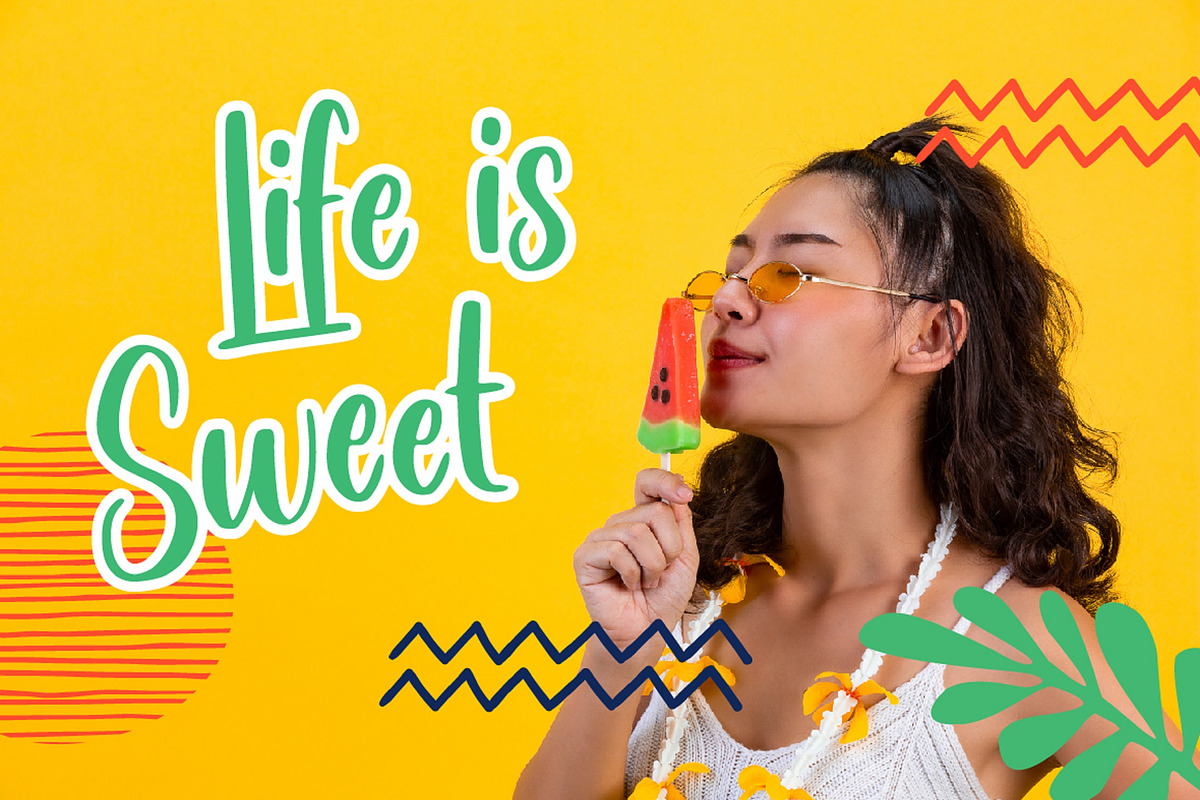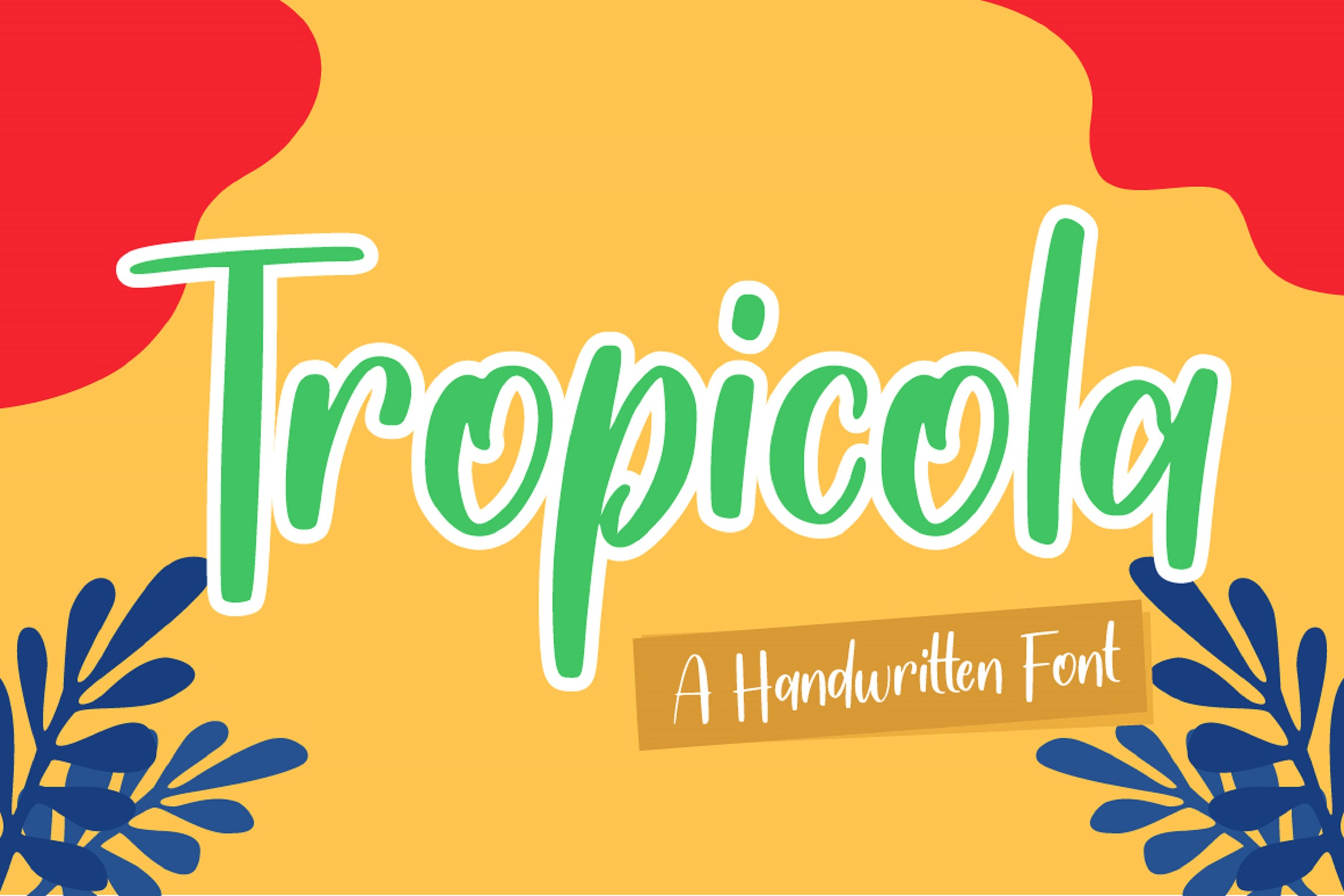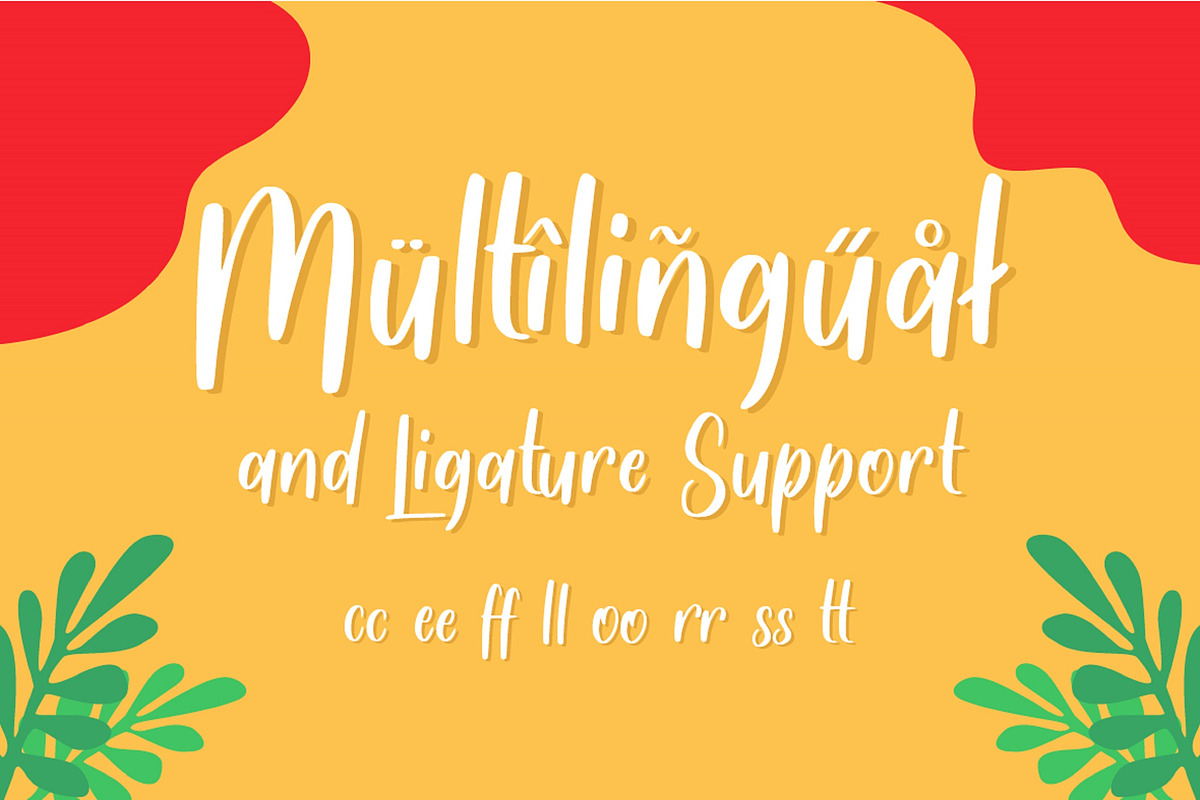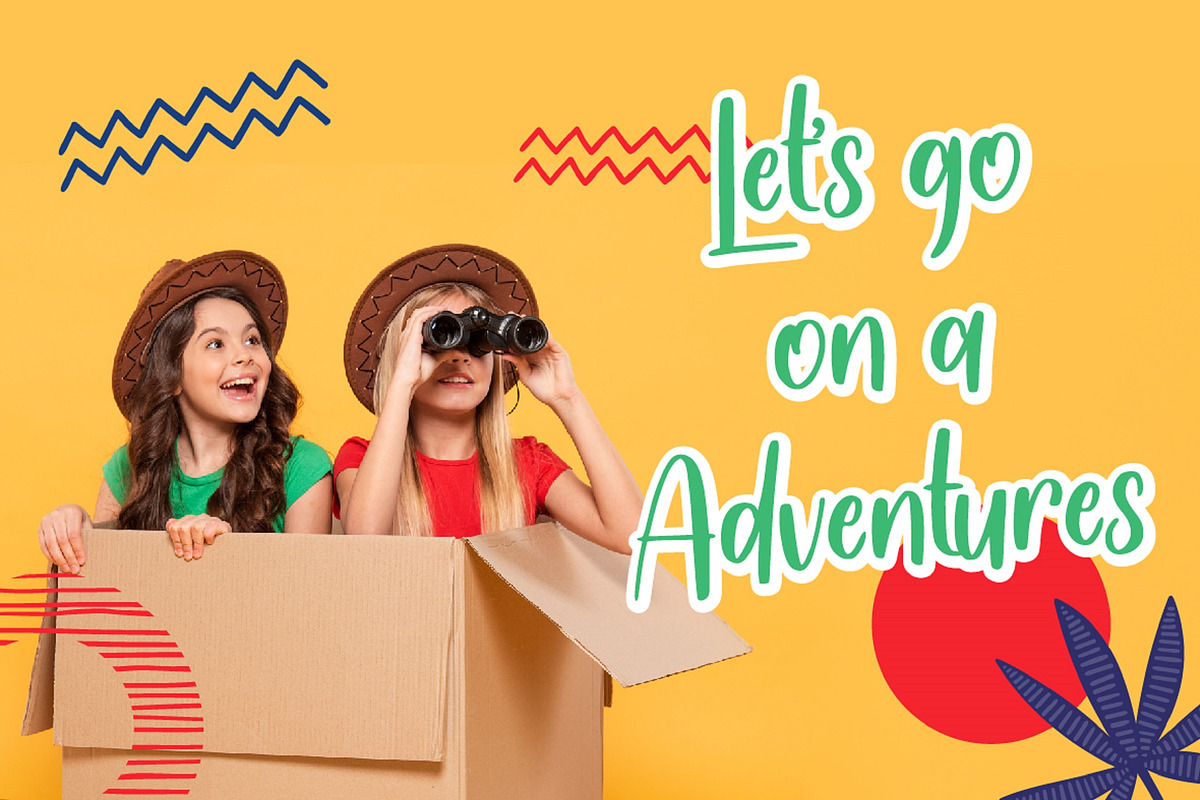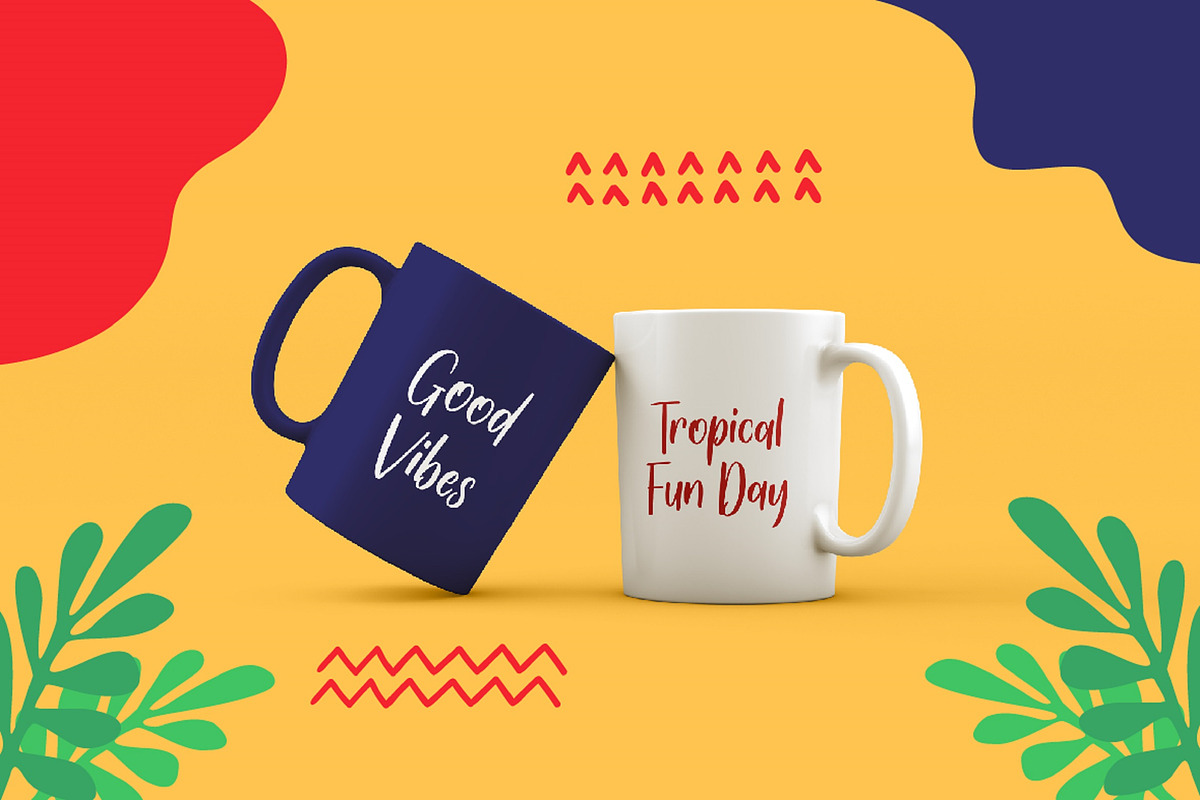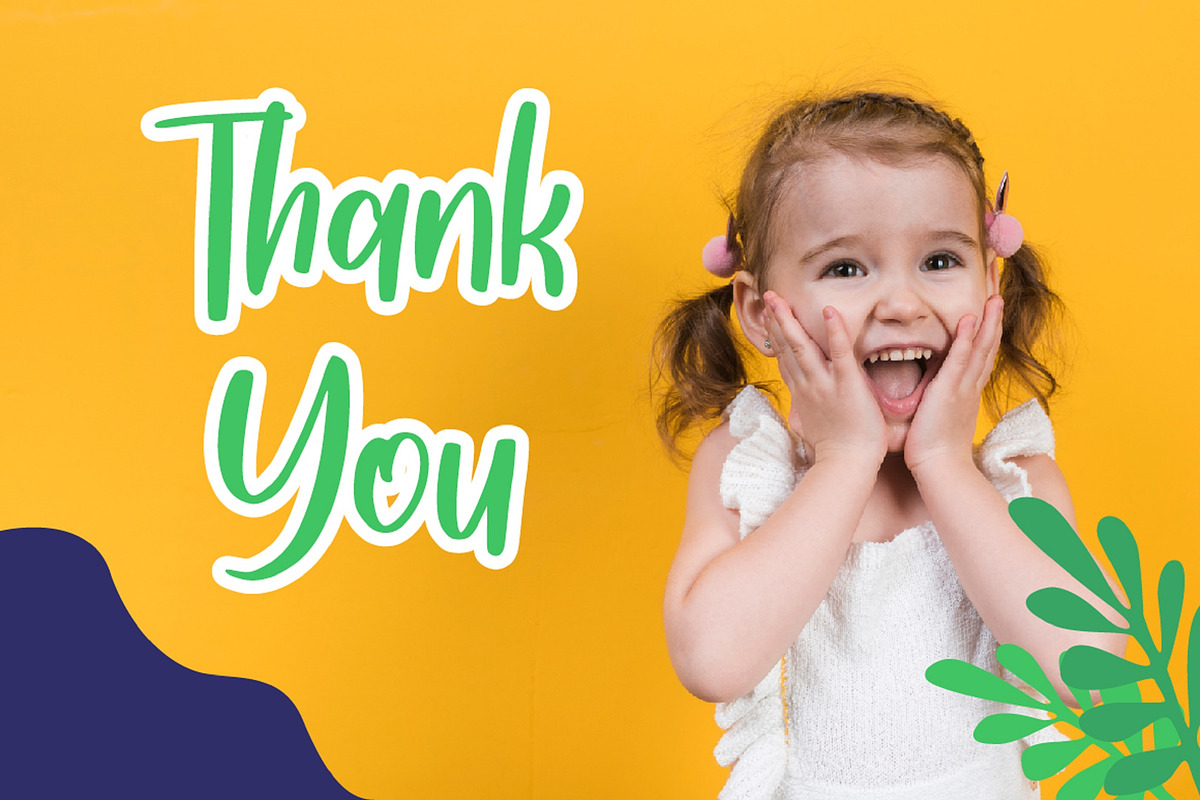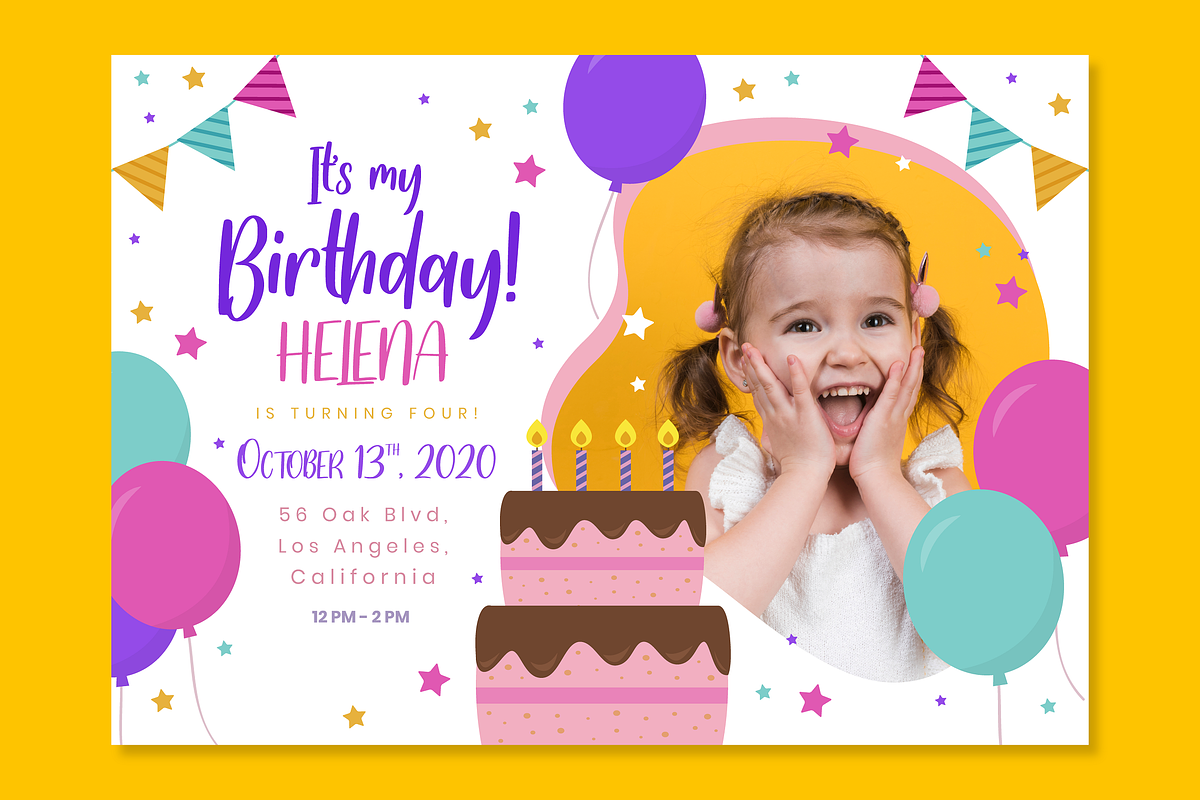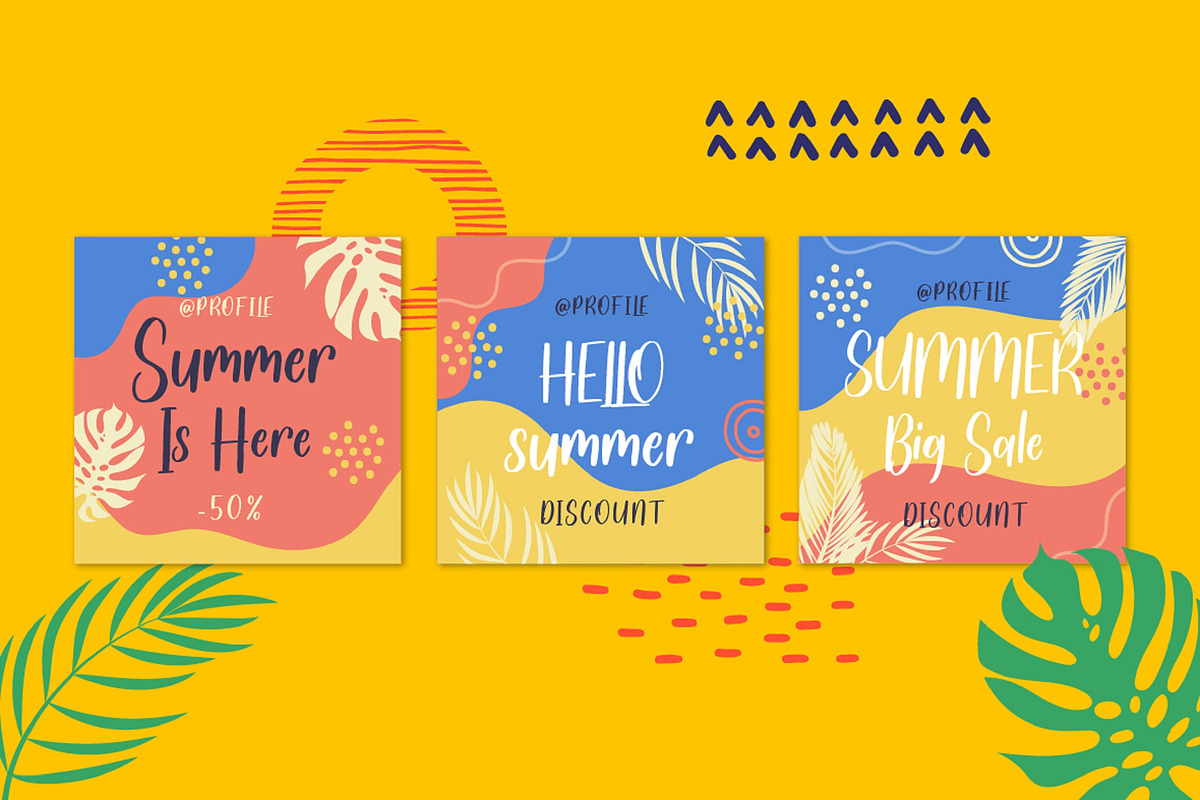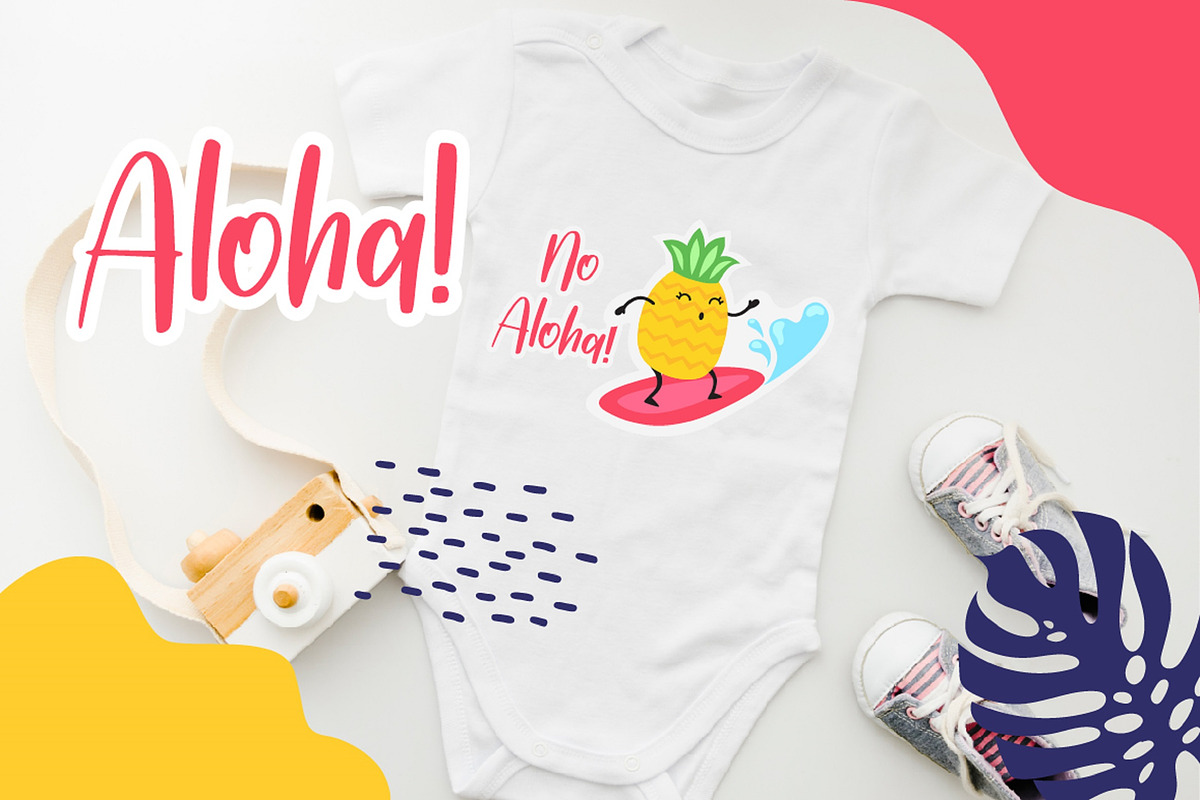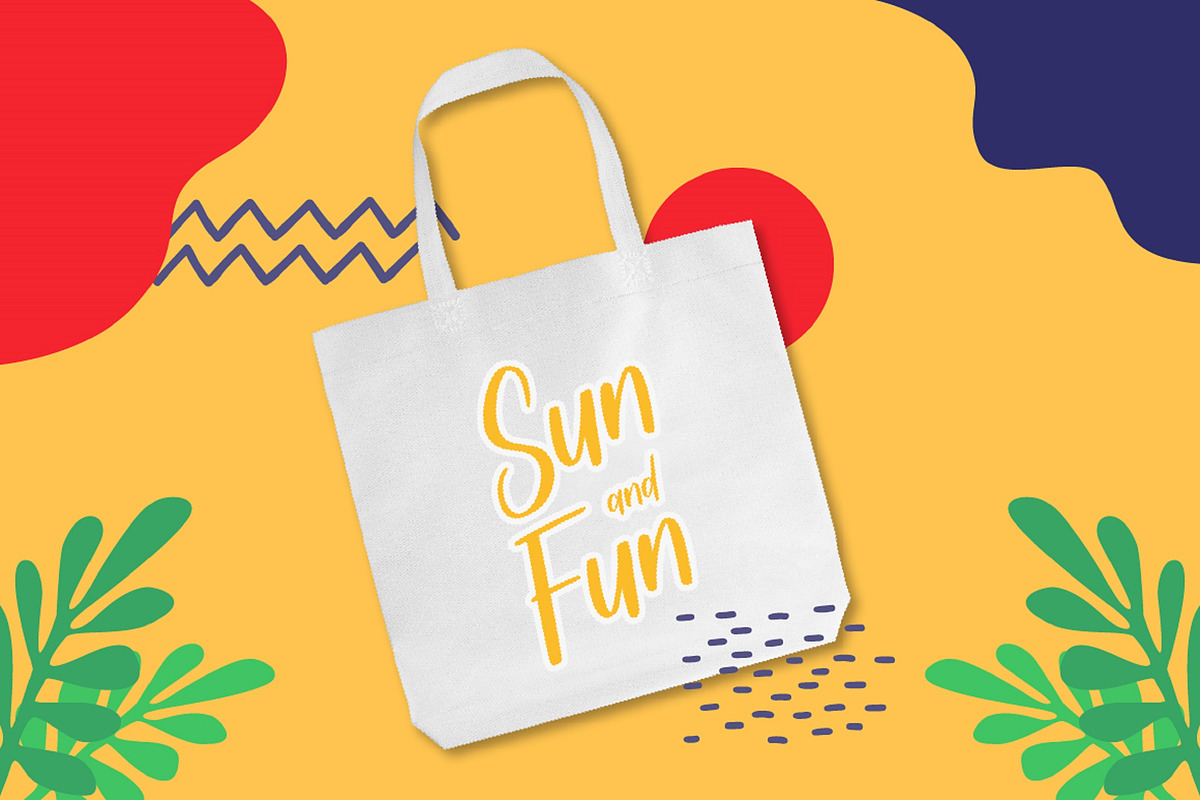
Handwritten Font
Introducing Tropicola - A Handwritten Font
You, me, sea, and Tropicola Handwritten font! This font is handcrafted with tropical palm trees and sunny vibes! Use this font on different projects, promotions, websites, banners, and even printed materials!
Feel the tropical breeze with your audience, clients, or guests with this stylish font now!
- Multilingual & Ligature Support
- Full sets of Punctuation and Numerals